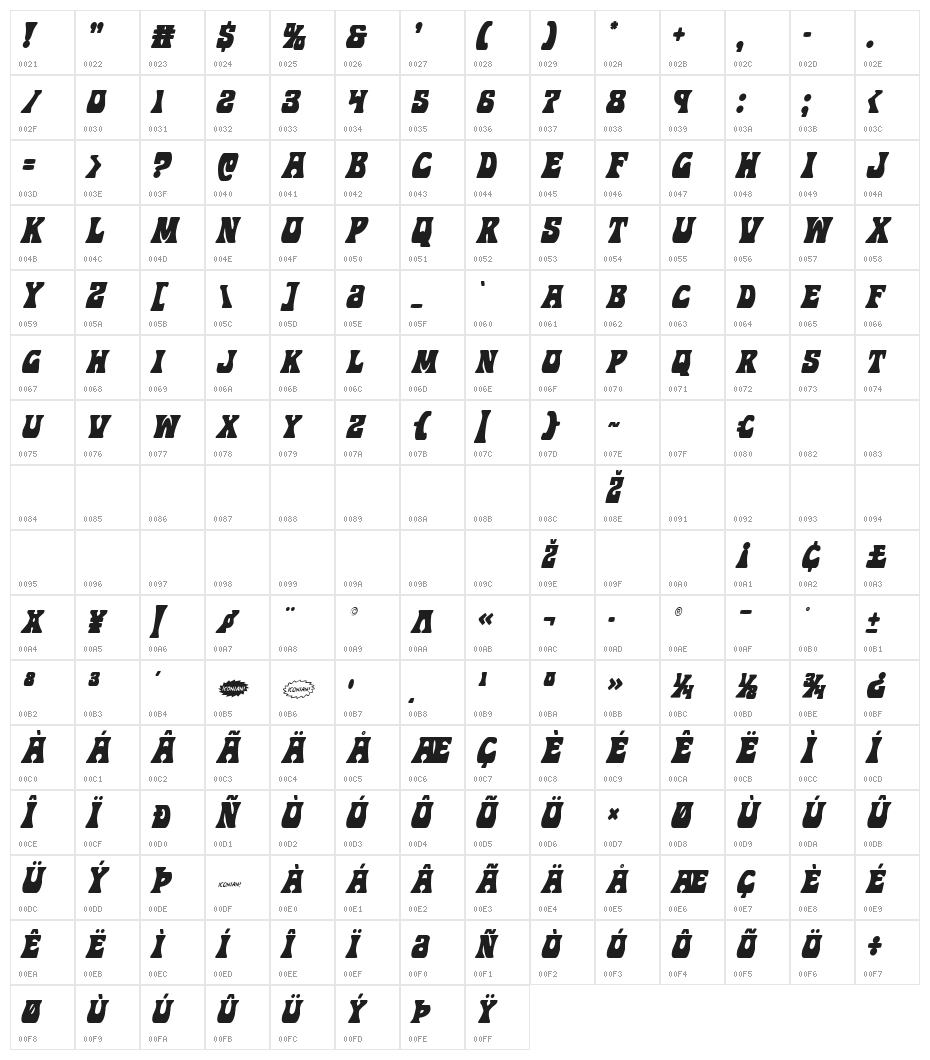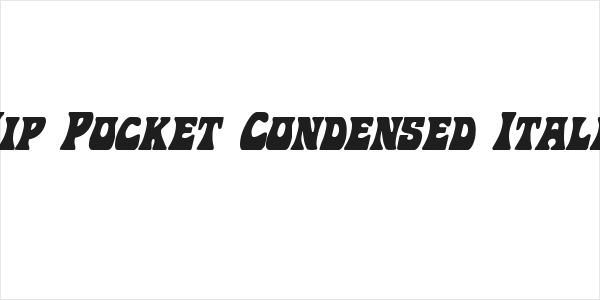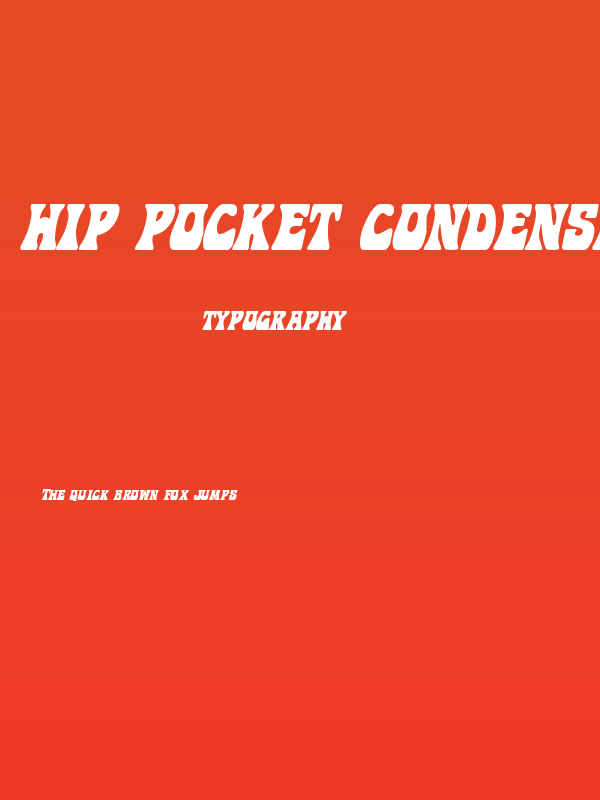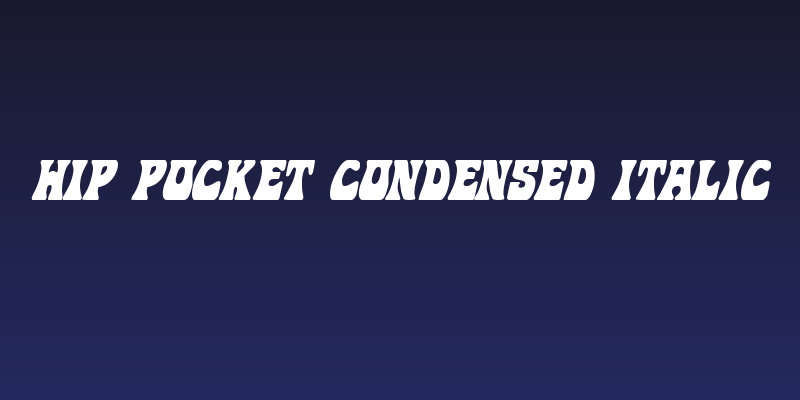
Hip Pocket Condensed Italic Font
Hip Pocket Condensed Italic Description
This font features a bold and dynamic style with a condensed and italicized form. The characters are robust and impactful, with thick strokes that convey a sense of strength and energy. The italic slant adds a sense of motion and urgency, making it ideal for attention-grabbing headlines or titles. The condensed nature allows for efficient use of space, making it suitable for designs where space is limited but impact is necessary. The font includes a full set of uppercase and lowercase letters, numbers, and a variety of special characters, ensuring versatility in design applications.
| Proposed Projects | Ideal for posters, logos, branding materials, and any design requiring a strong visual impact. |